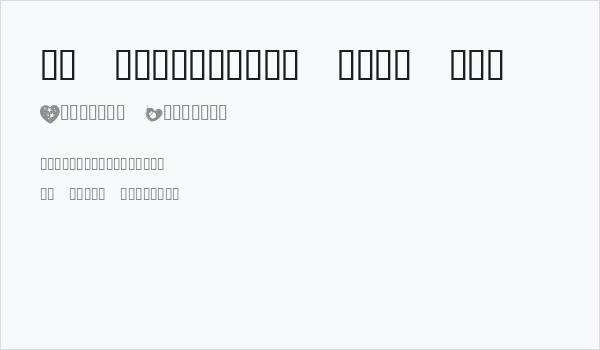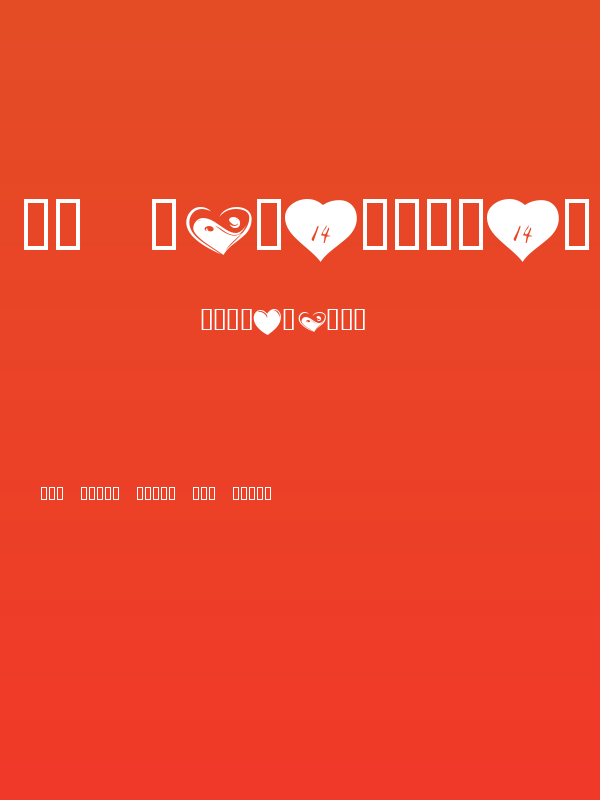
KR Valentines 2006 Six Font
KR Valentines 2006 Six Description
This is not a valid font. The image contains decorative heart shapes with various Valentine's Day-themed designs, such as hearts with the word 'Love', stars, and other embellishments. These elements are more akin to clip art or icons rather than a traditional font set. The characters are not represented in a standard alphanumeric format, making it unsuitable for typical text applications.
| Use Case | Decorative elements for Valentine's Day projects. |
| Proposed Projects | These designs could be used for Valentine's Day cards, decorations, or themed graphic design projects. |